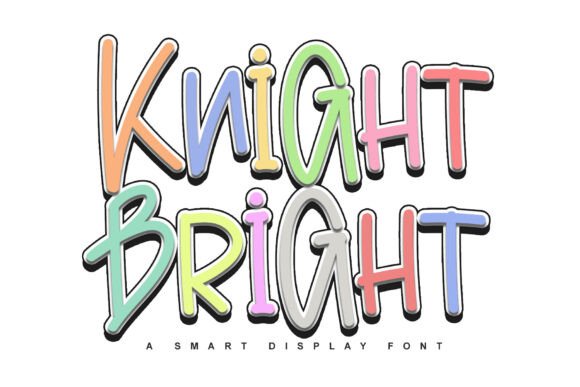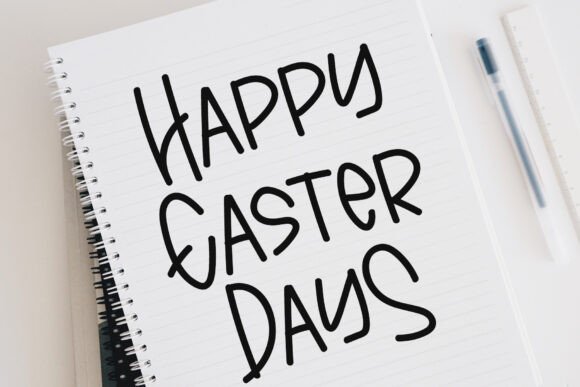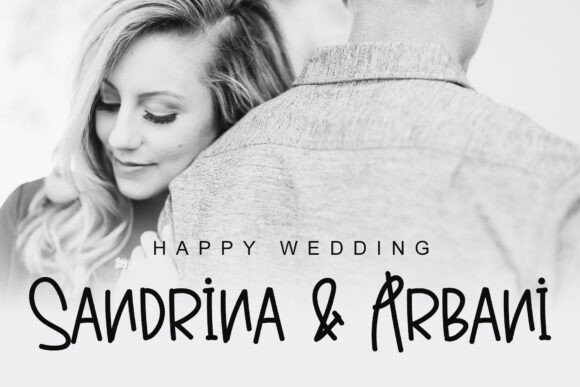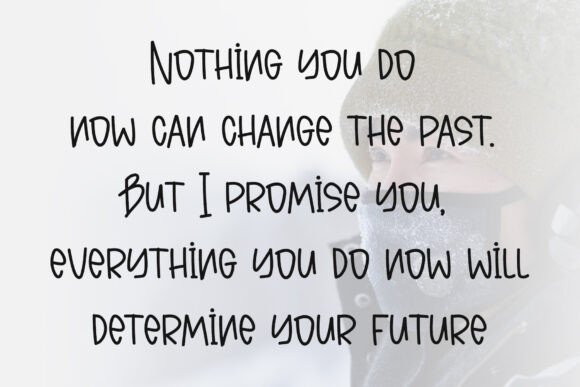
Knight Bright Font
About the Knight Bright Font
Discover the charm of Knight Bright Font. This font is a perfect blend of modern aesthetics and classic appeal. Knight Bright is a modern and friendly handwritten font. This font is neatly crafted and highly detailed. Whatever the topic, this font will be a wonderful asset to your font library, as it has the potential to enhance any creation.
Knight Bright’s friendly, handwritten style works exceptionally well in headlines, short-form content, and branding applications where a touch of approachable personality is desired. It’s ideal for logos, social media graphics, short quotes, and packaging design for products targeting a younger or more casual demographic. However, its detail and informality make it less suitable for body text or UI elements requiring high legibility in large blocks of text.
Pairing Knight Bright effectively depends on the desired emphasis. For a more playful feel, consider pairing it with a geometric sans-serif like Futura or a rounded sans-serif like Bebas Neue. To achieve a more sophisticated balance, a classic serif like Garamond or a clean, neutral sans-serif such as Lato would work well. Script fonts could also complement it, but should be chosen carefully to avoid visual clutter.
The overall personality of Knight Bright is cheerful and approachable, yet refined due to its detailing. It evokes feelings of warmth and approachability, making it well-suited to brands projecting optimism and friendliness.
Knight Bright Font Usage Examples
Knight Bright Font Example